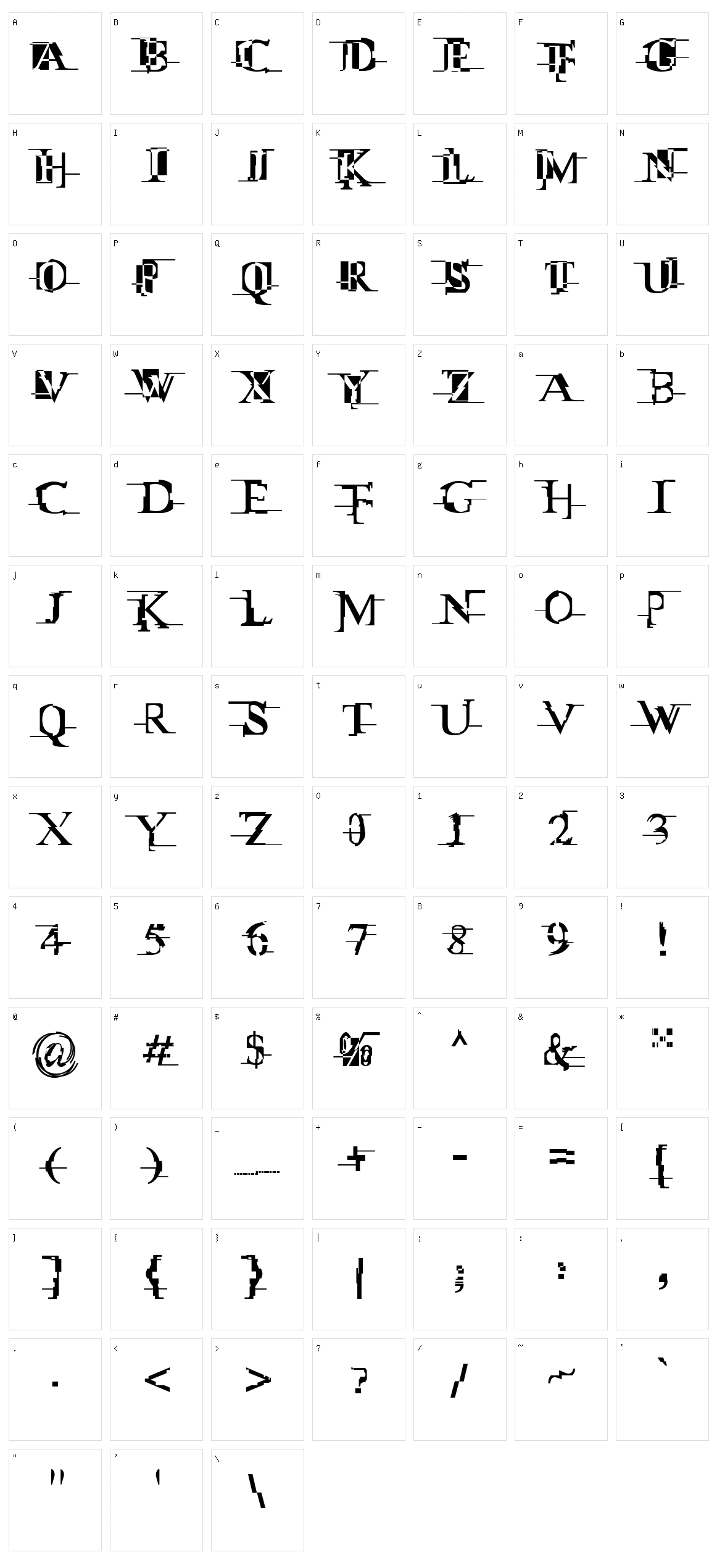
Yet another showing of classic type demolished, this time sinking Times a bit further.
The idea for a second Miltown came from a designer friend of mine who tries his best to break out of the norm in everything he does. For as long as I've known him, he's been shedding light on things from angles which can in most cases qualify as an "unexplored perspective" as another friend of mine would label it. One of his funky habits is watching television and movies in black and white and only in black and white. He has his VCR set up to drain the colour from everything that plays through it.
One day last month, I was at his place and he was watching the Matrix movie. In black and white, of course. I took one look at the very familiar titling, and was very surprised to realize that it looked sharper, tighter and much better overall with a greyscale background. So I decided to try imposing the greyscaling on the background of the original Miltown. To do that, I simply drew a vertical rectangle in Illustrator and placed it randomly over each character. It looked good, and it did scream movie titling. Since the experiment was favourable, the technician in me decided to go the extra step on the font.
To make a long story short, here's what's new in Miltown II:
- The caps are the semi-knocked-out characters, while the lowercase letters are the same as the uppers in the original Miltown.
- The space stroke in this font will produce a blank 450 em wide space, as opposed to the variety of "fillers" that were in the original Miltown.
- Brand new numbers, as opposed to the OCR-like digits that were in Miltown.
- Complete character set. Although the original Miltown had many accented characters, it was nowhere near complete. This one is. It has all the monetary characters, for instance. The @ was remade to fit the style. And a bunch of other letters were either added or remade. If you liked and used the original Miltown, I suggest you take a closer look at this one to see where you can benefit more from its usage.
- Fitting and kerning were revised extensively. Although spacing the characters properly is nearly impossible in a font with a really random width and height structure such as this baby here, I tried my best to trap all the characters in their kerning. So EVERYTHING is kerned. Upper-upper, upper-lower, lower-upper, digits, accented-upper, accented-lower, lower-accented, upper-accented, etc. The result is 8838 kern pairs.
All in all I strongly recommend using this font instead of the original Miltown. Whatever you did with the original can be done with this font, except for the space fillers and the OCR-like numbers, which one can always use the original Miltown to produce. However, if you want to reproduce the spacing of the letters in the Matrix title, you should stick to the original Miltown. Miltown II, though it has a much better tightness to it, was not kerned to match the spacing of the movie title, but to actually look better in a demolition-man sort of way.